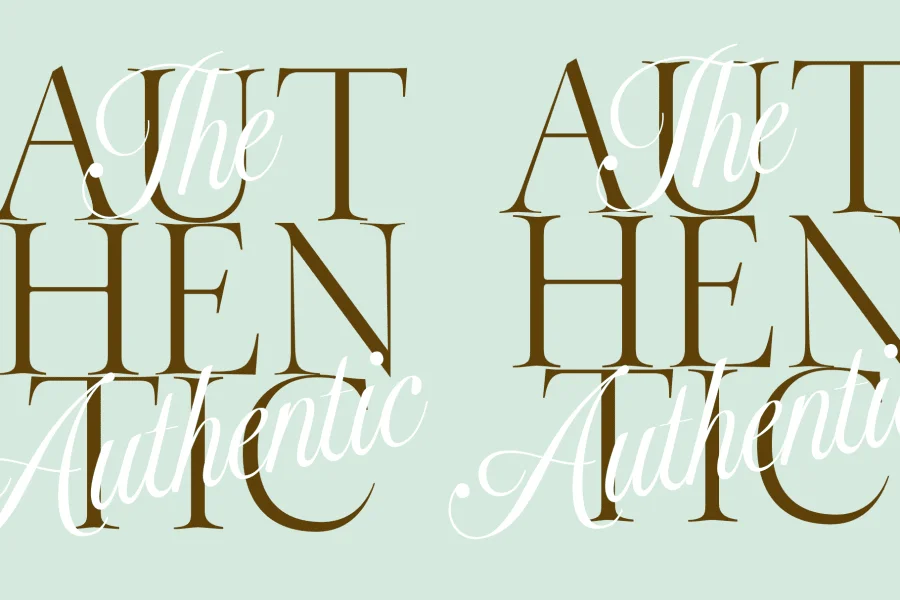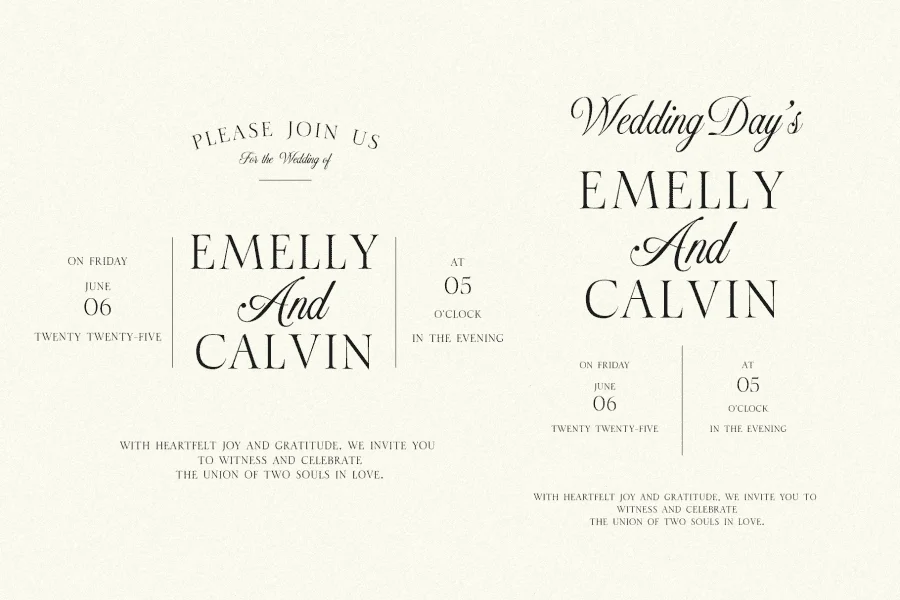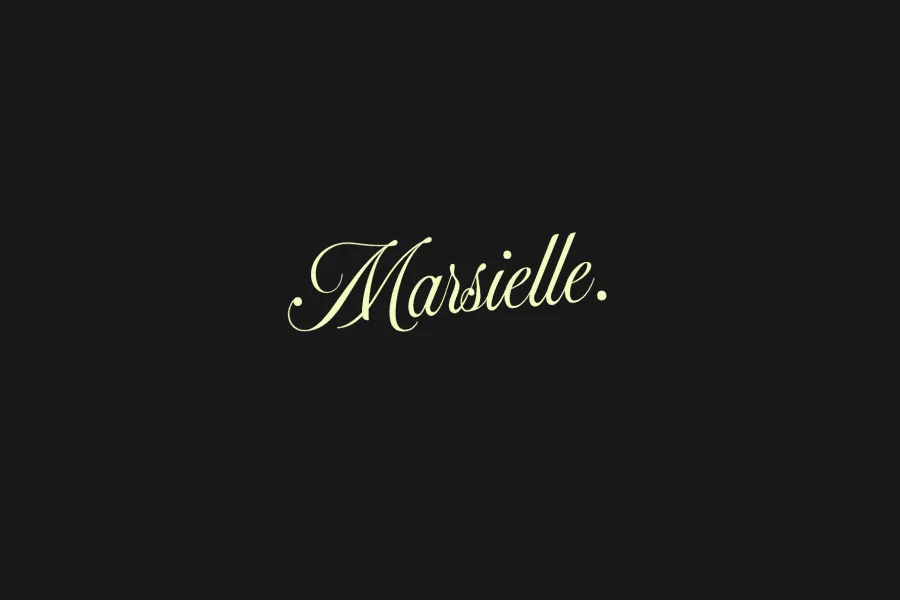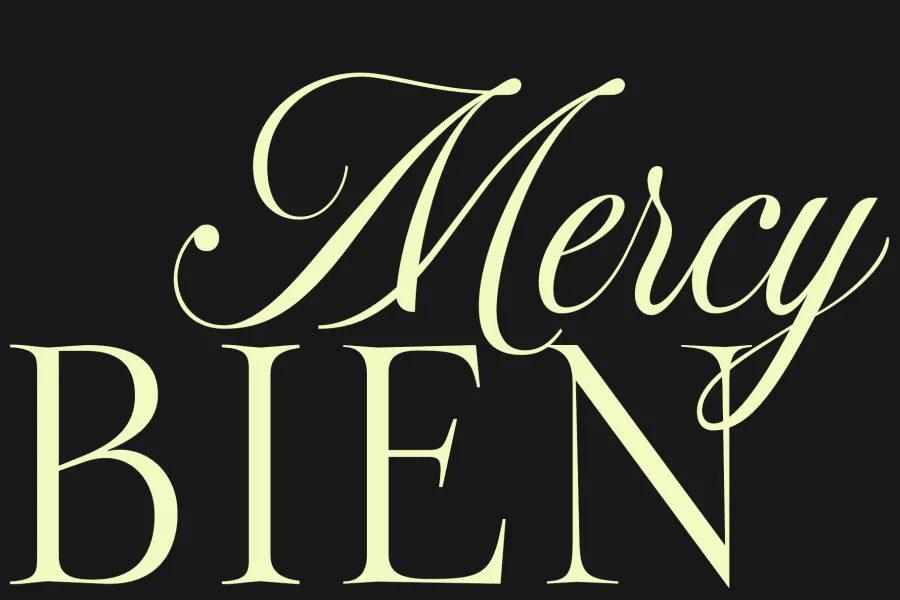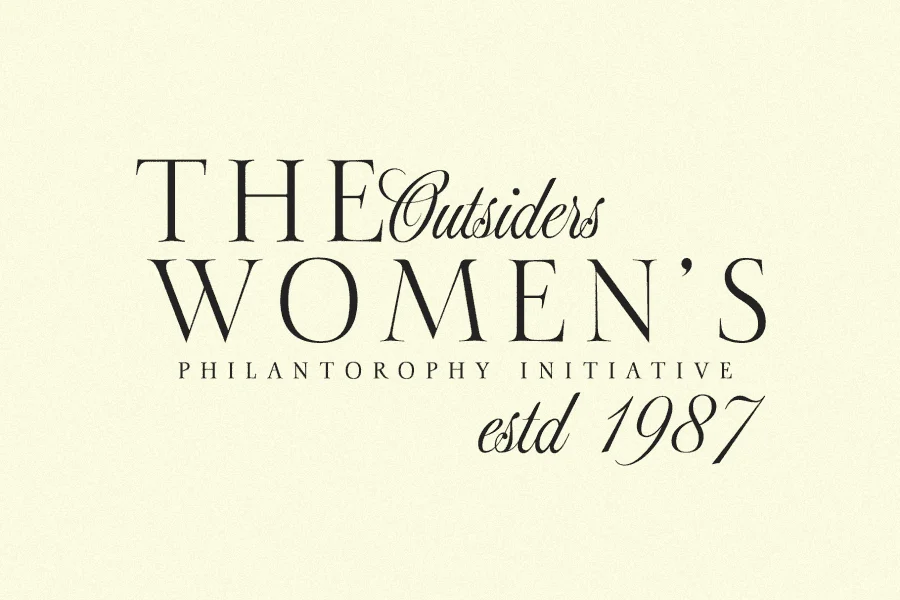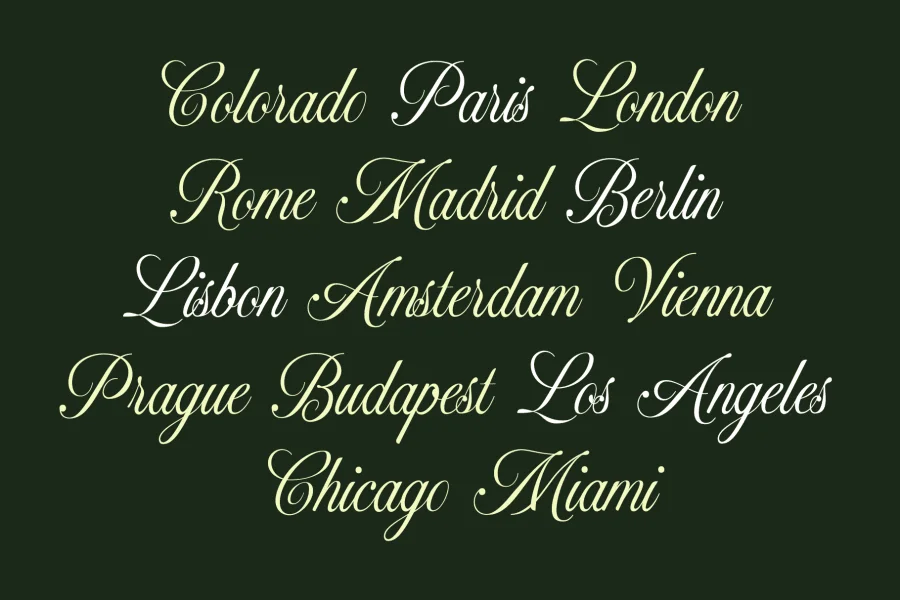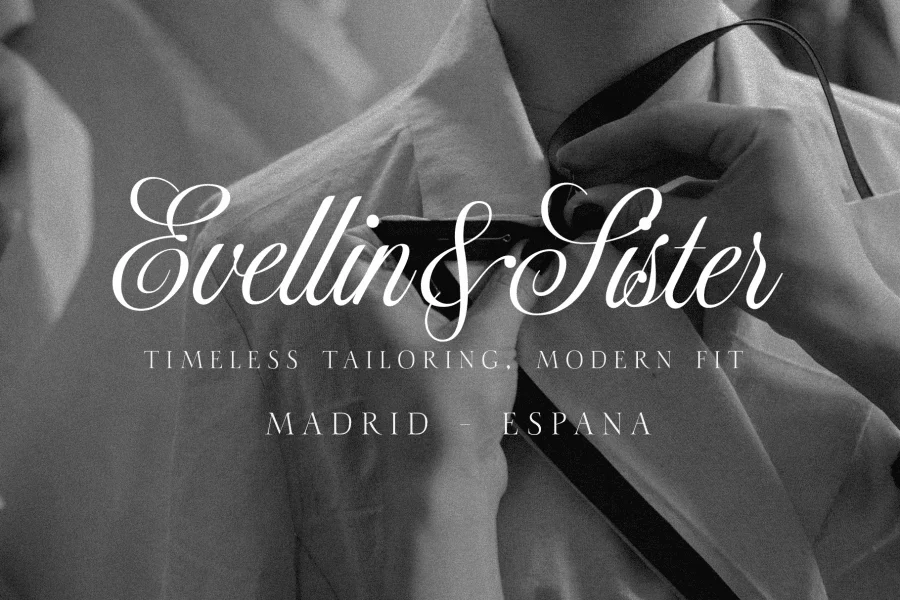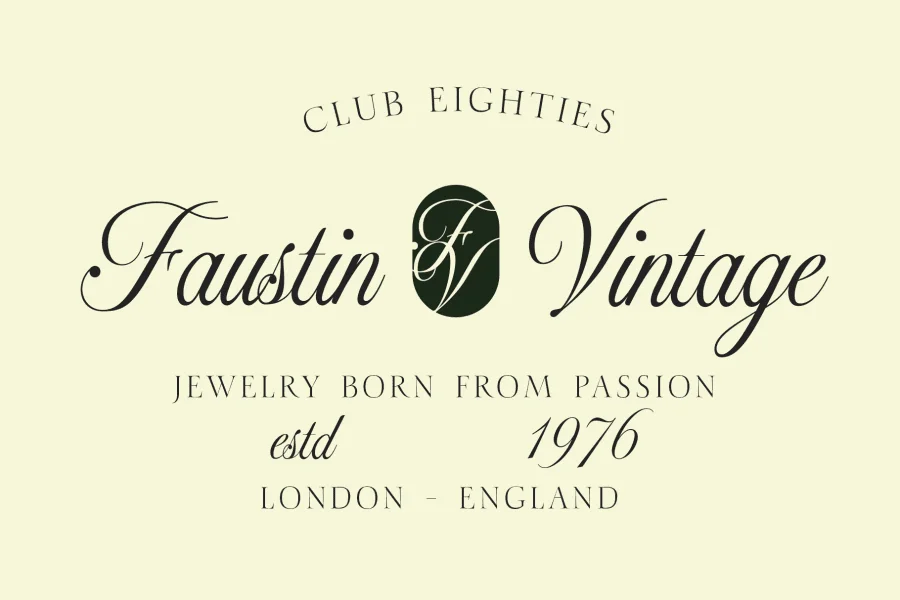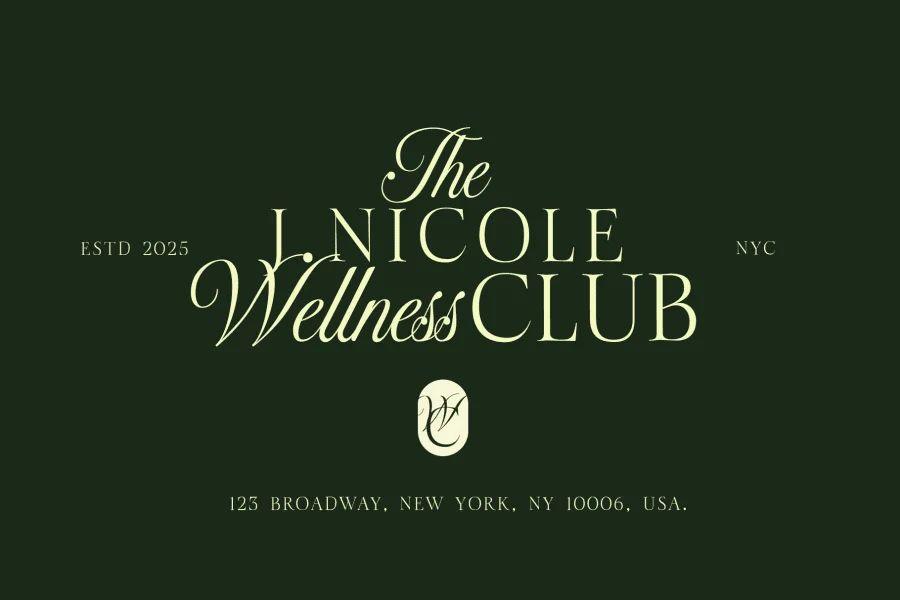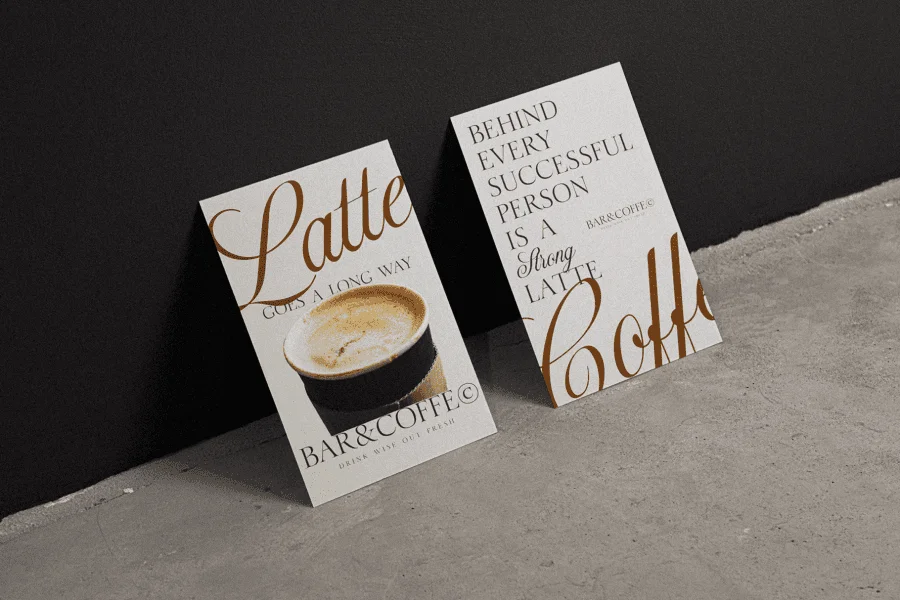
Madison Sauvage is an elegant fusion of classic serif structure and
graceful calligraphic script, carefully crafted to evoke a sense of refined
heritage and timeless luxury. This typeface blends the sharp
sophistication of a traditional serif with the flowing charm of handlettered
calligraphy, creating a distinctive look that feels both regal and
romantic.